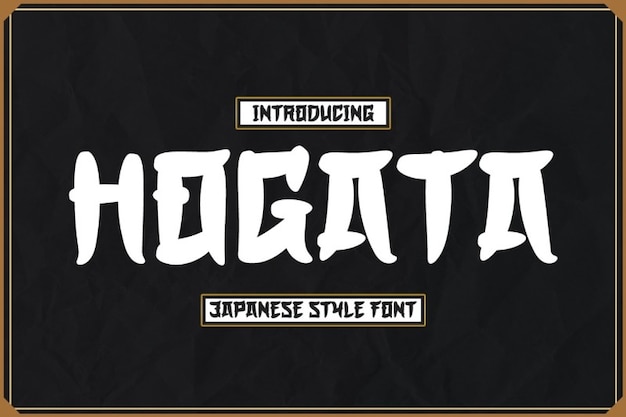
Hogata
Hogata Font
This is Hogata! A Japanese inspired font that stands out because of its relaxed and particular look. Its bubbly design pleases everybody's eyes, and it's a great choice for your projects: logos, food menus, banners, posters, and much more. Download this font now!